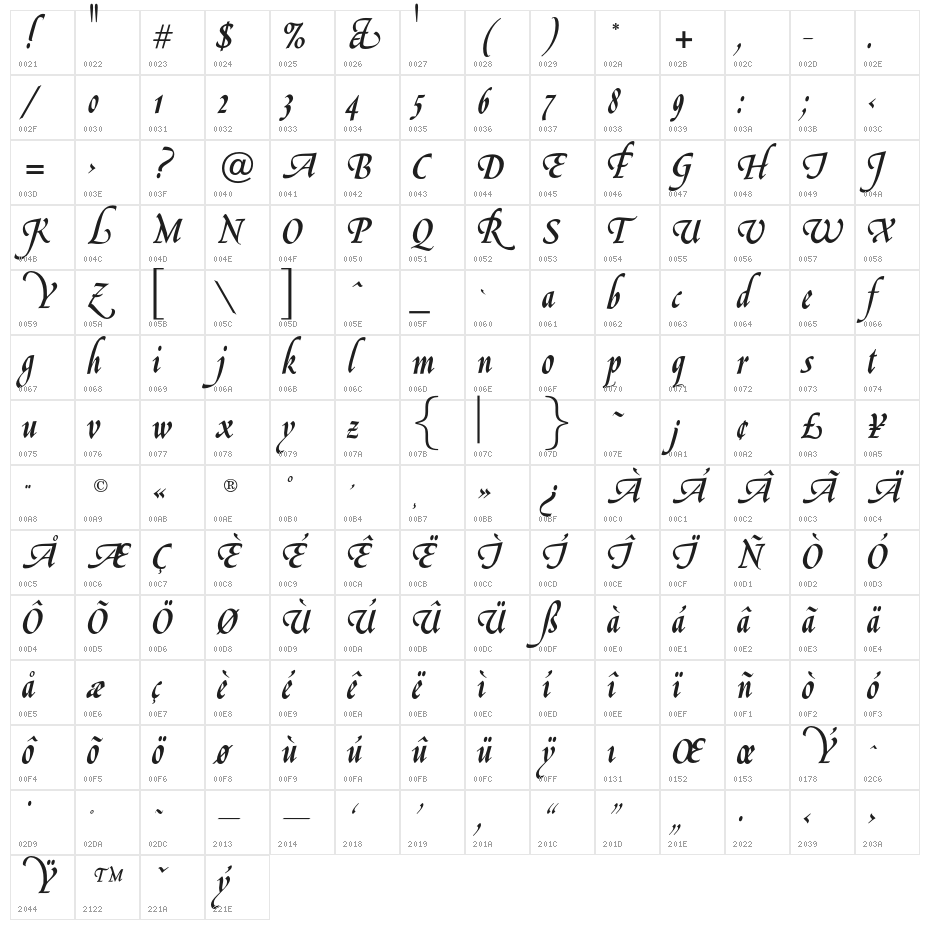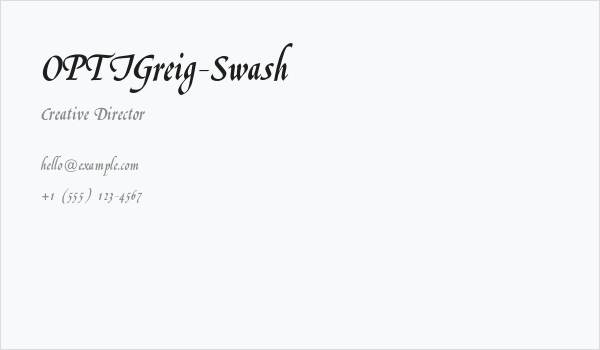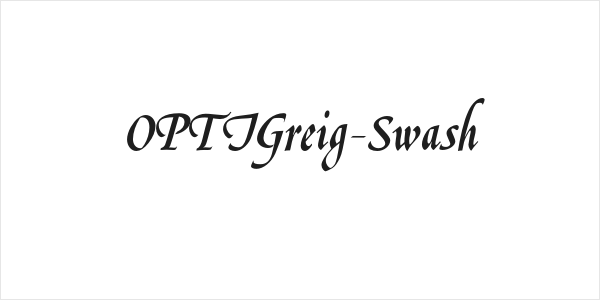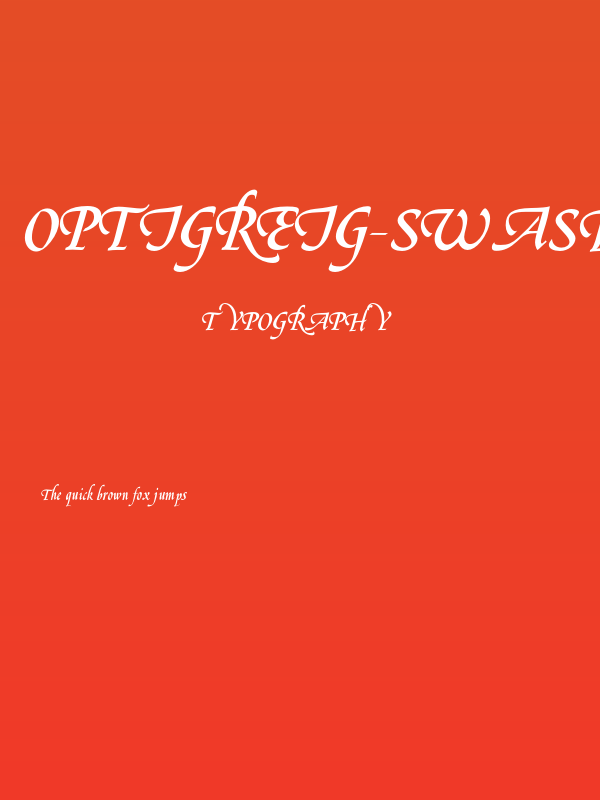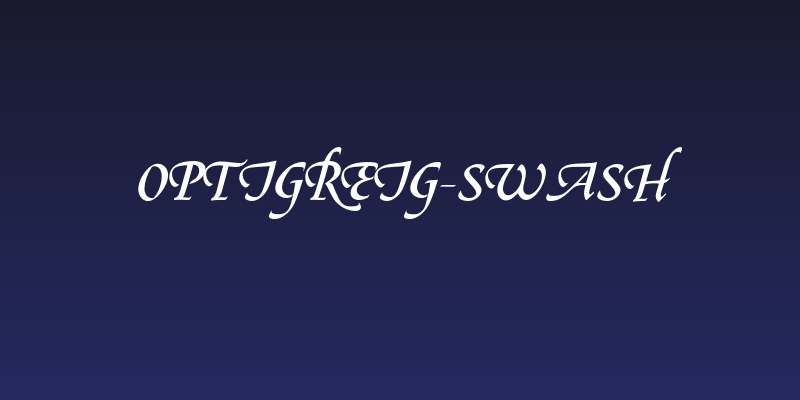
OPTIGreig-Swash Font
OPTIGreig-Swash Description
This font exudes elegance and sophistication with its flowing, cursive style. The characters are designed with graceful swashes and flourishes, giving it a dynamic and artistic appearance. The uppercase letters are particularly ornate, featuring extended strokes that enhance their decorative quality. The lowercase letters maintain a consistent fluidity, ensuring readability while adding a touch of flair. Numbers and special characters are crafted with the same attention to detail, making them suitable for a variety of creative applications. This font is ideal for projects that require a touch of elegance and artistic expression.
| Proposed Projects | Wedding invitations, greeting cards, branding, and logo design. |